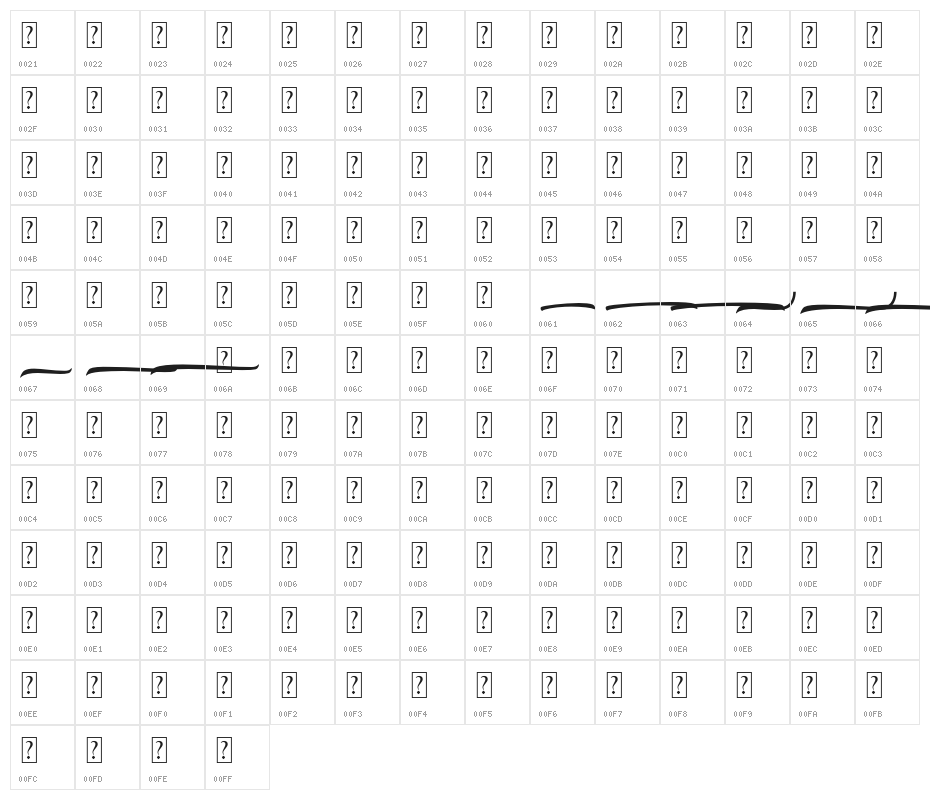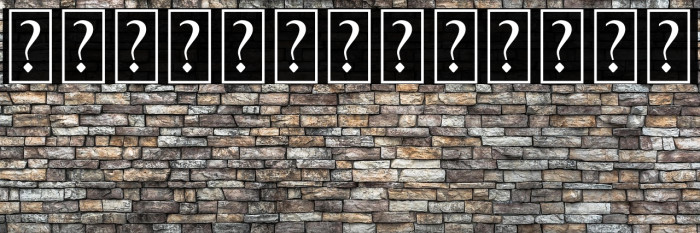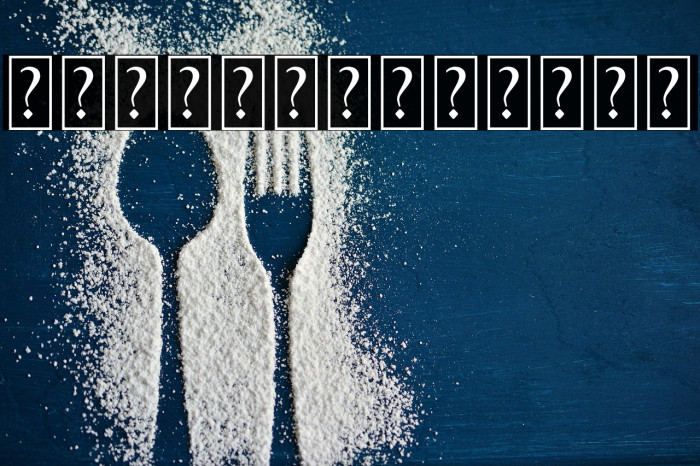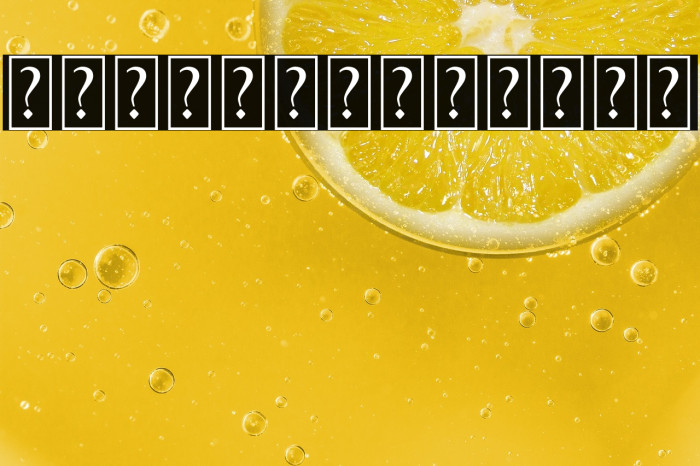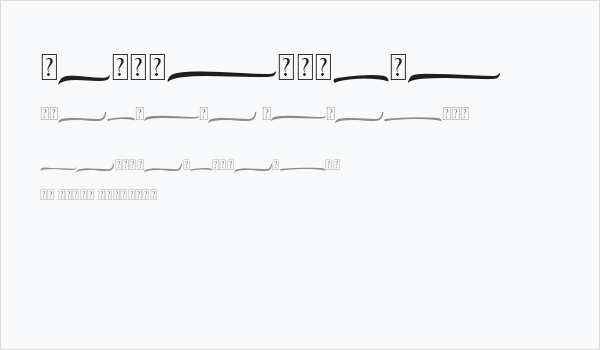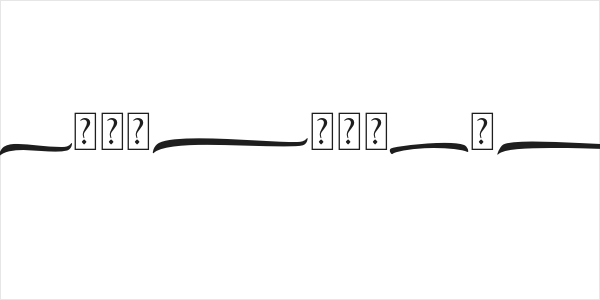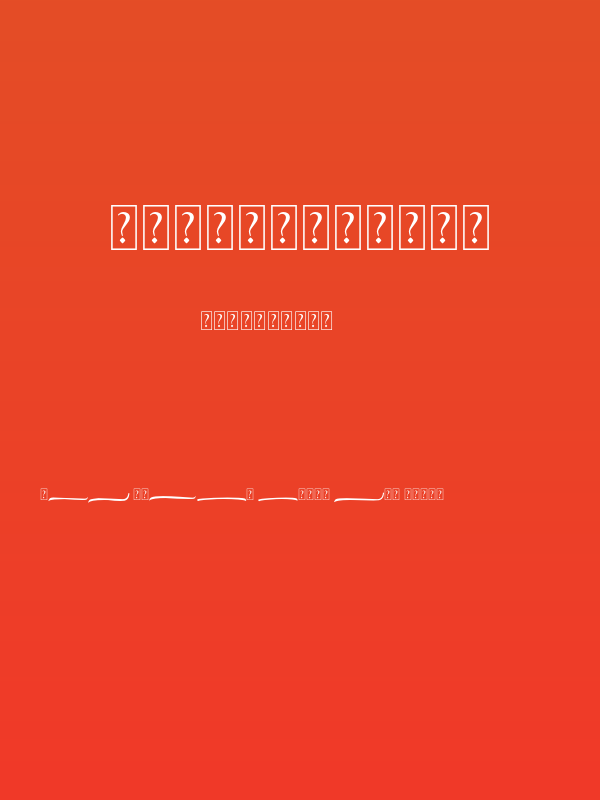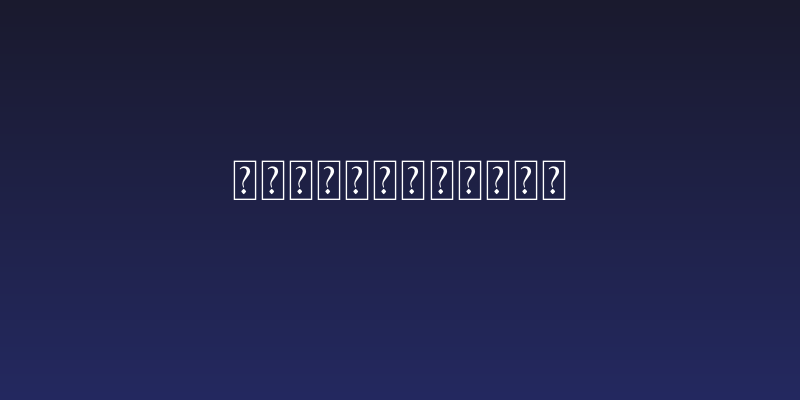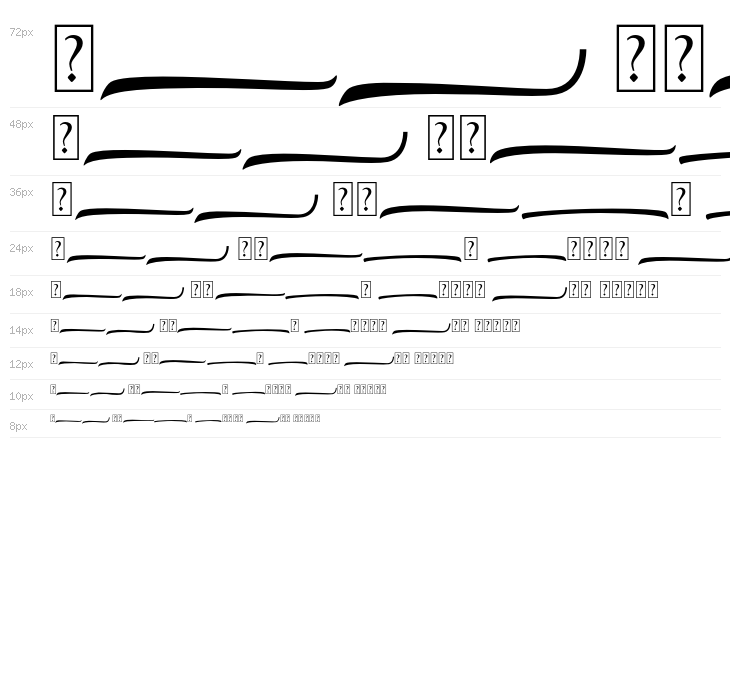
AgustinSwash Font
AgustinSwash Description
This font is a decorative and artistic typeface characterized by its elegant and flowing swashes. Each letter is adorned with intricate curves and flourishes, giving it a sophisticated and ornamental appearance. The design is reminiscent of calligraphy, with a modern twist that makes it suitable for various creative applications. The font's unique style is perfect for projects that require a touch of elegance and flair, such as invitations, greeting cards, and branding materials. Its distinctiveness lies in the harmonious blend of traditional calligraphic elements with contemporary design aesthetics.
Use CaseLogos, Invitations, Artistic projects
Proposed ProjectsIdeal for wedding invitations, luxury branding, greeting cards, and artistic posters.